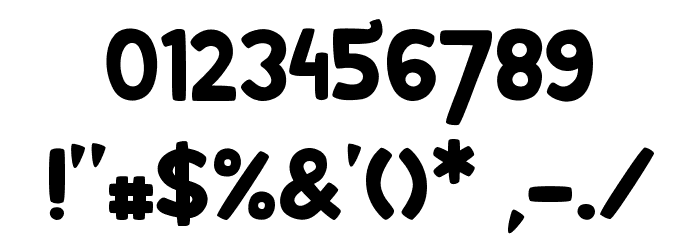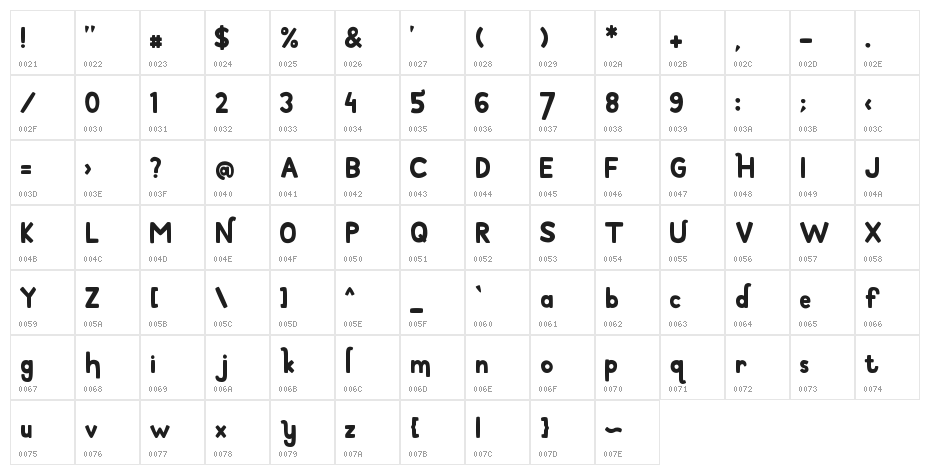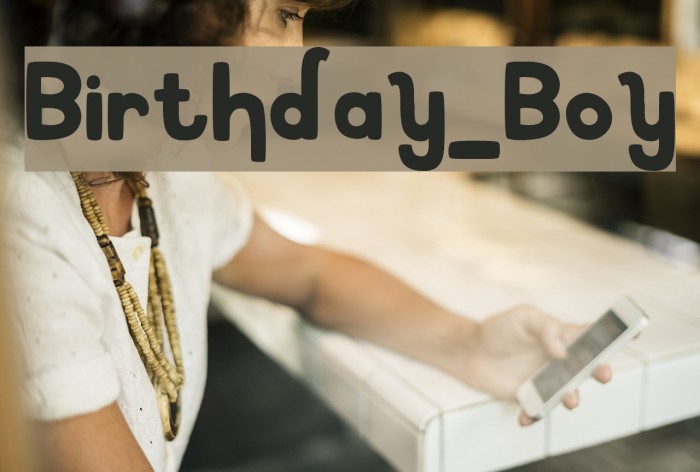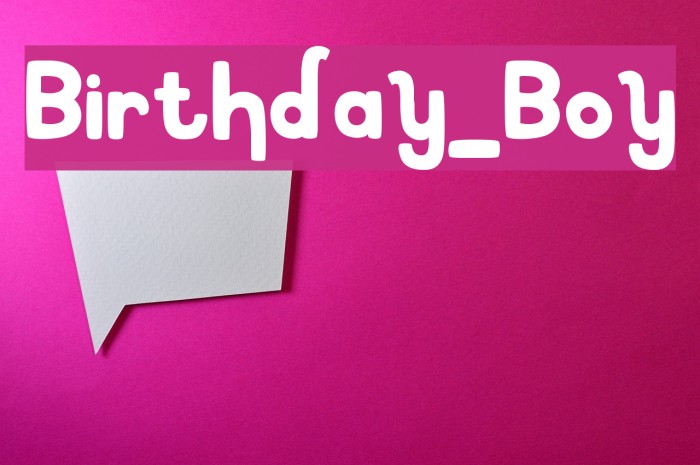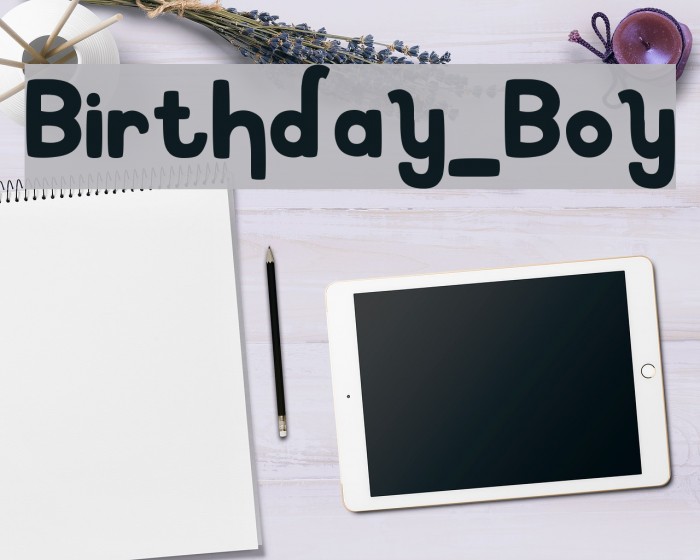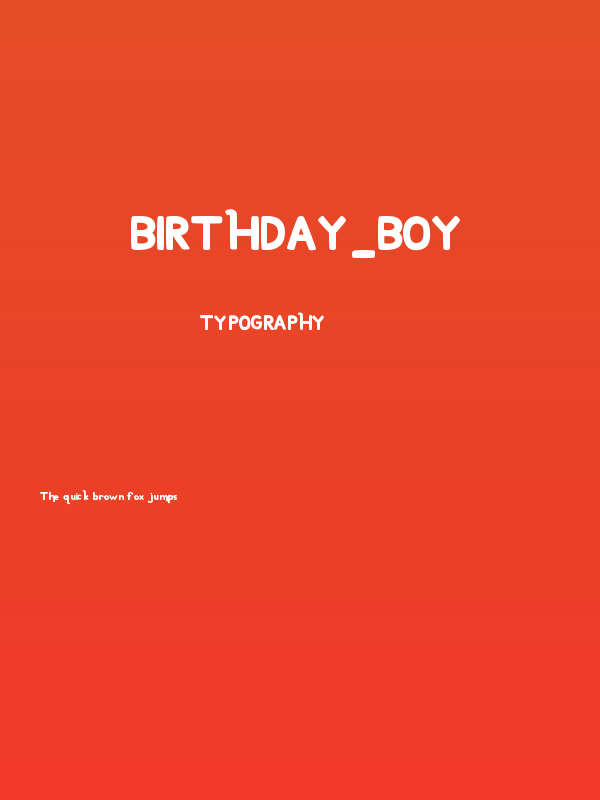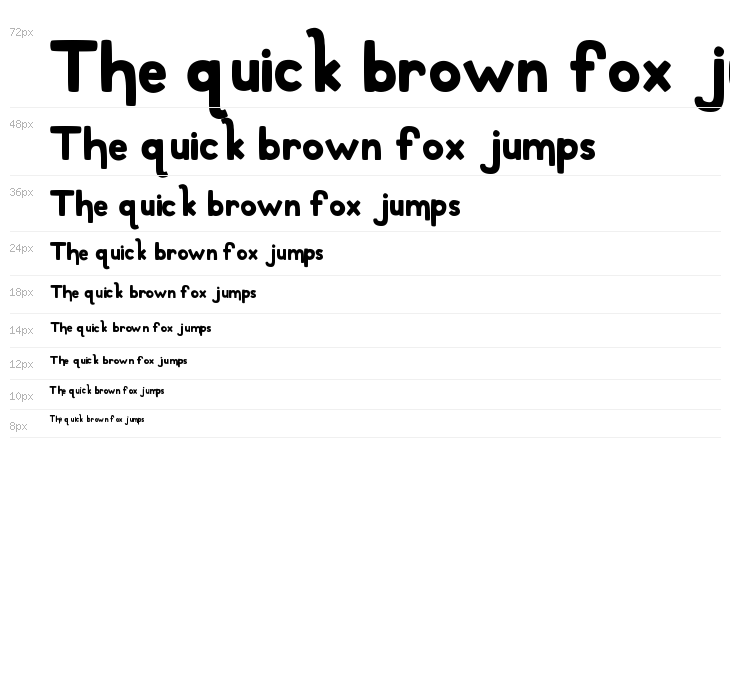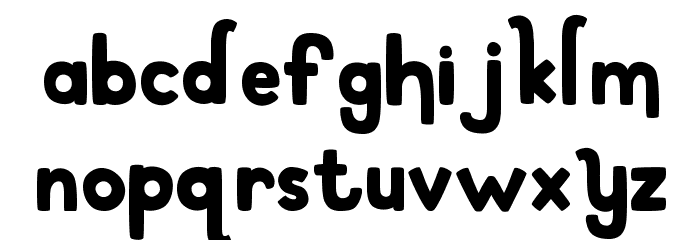
Birthday_Boy Font
Birthday_Boy Description
This playful and bold font features rounded edges and a friendly, approachable style. The characters are thick and slightly irregular, giving it a hand-drawn appearance that adds a whimsical touch. The uppercase and lowercase letters maintain a consistent weight, while the numbers and special characters complement the overall design. Its unique charm makes it ideal for projects that require a fun and lively aesthetic.